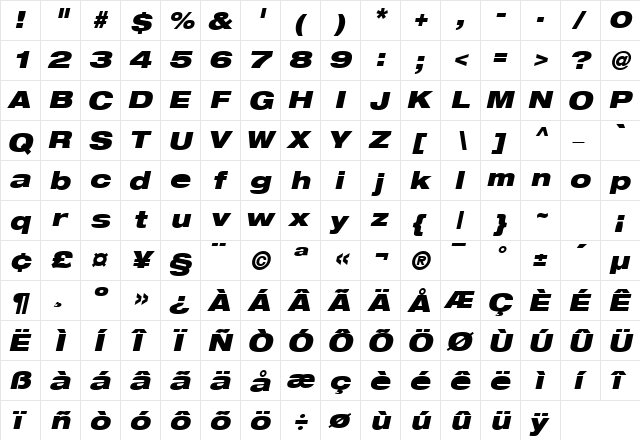
HeaveneticaExtd9 BlkOblSH Font Preview
HeaveneticaExtd9 BlkOblSH
Design Context for HeaveneticaExtd9 Typeface
HeaveneticaExtd9 takes a measured approach to typography — its balanced proportions and neutral character make it a reliable workhorse for both digital and print work.